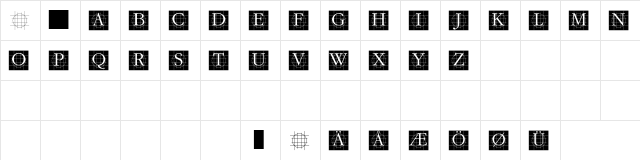
GrafCirculumBricks Regular
GrafCirculumBricks takes a measured approach to typography — its balanced proportions and neutral character make it a reliable workhorse for both digital and print work.